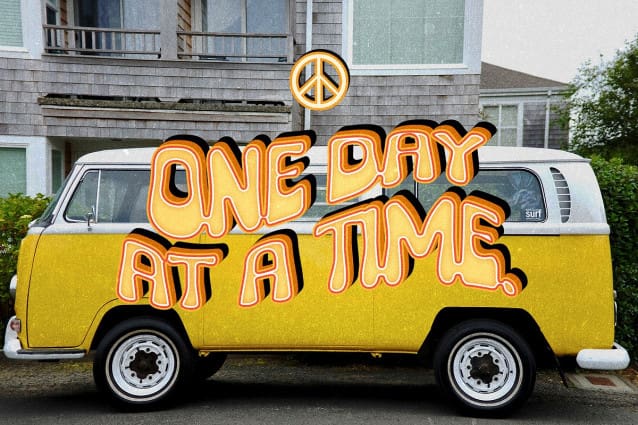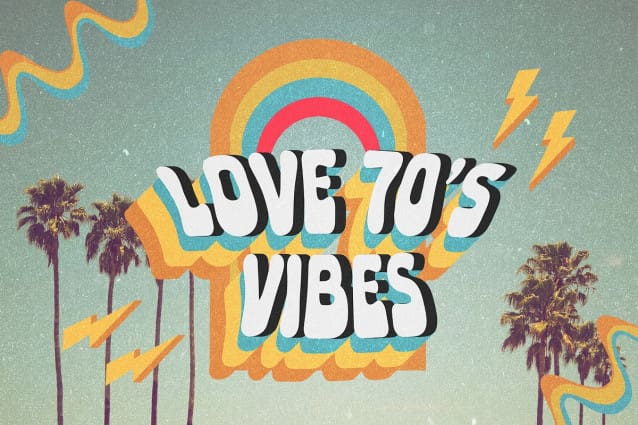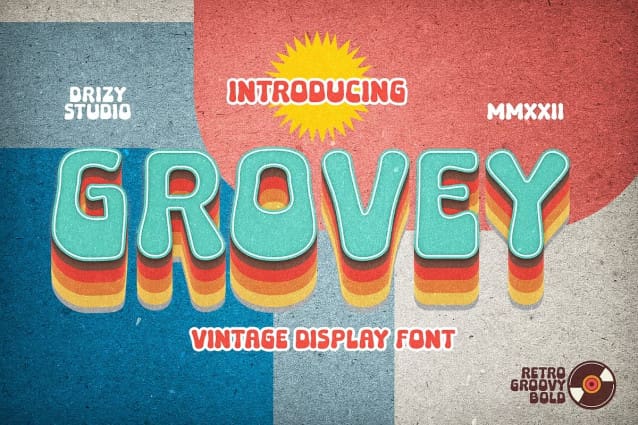
Grovey Display Font
Grovey Display Font is Bold Vintage Font from Drizy studio. Offering all the basic styles you will need for a successful project.